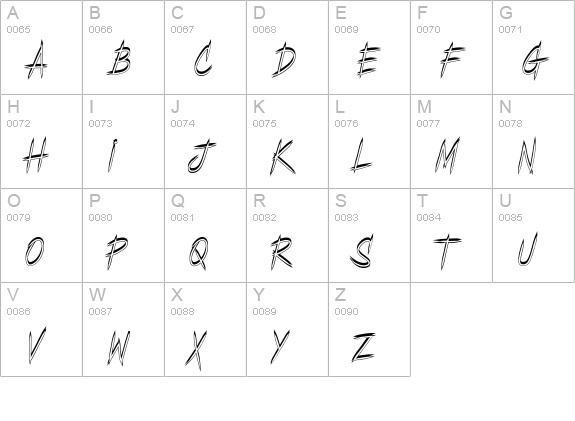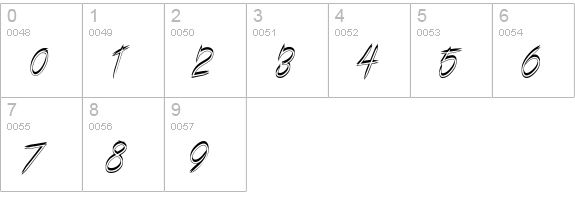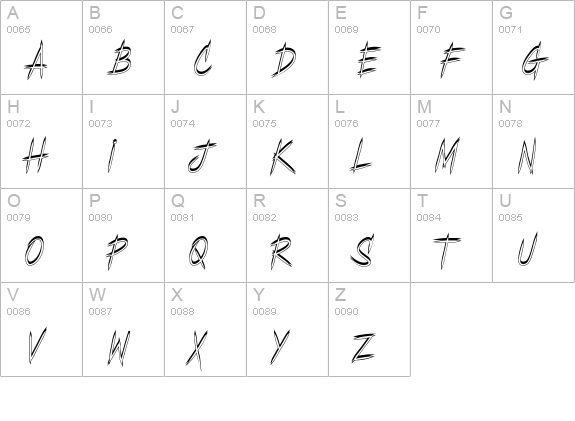
Copa Sharp BTN Shadow Font Details
Copa Sharp BTN Shadow is a sleek and modern display font that exudes sophistication and elegance. With its sharp edges and shadow effect, this font is perfect for making a bold statement in your designs. Whether you're creating posters, logos, or branding materials, Copa Sharp BTN Shadow is sure to leave a lasting impression. The best part? This stunning font is available for free download at FontsMarket.com. Don't miss out on the opportunity to add Copa Sharp BTN Shadow to your font collection today and take your designs to the next level.